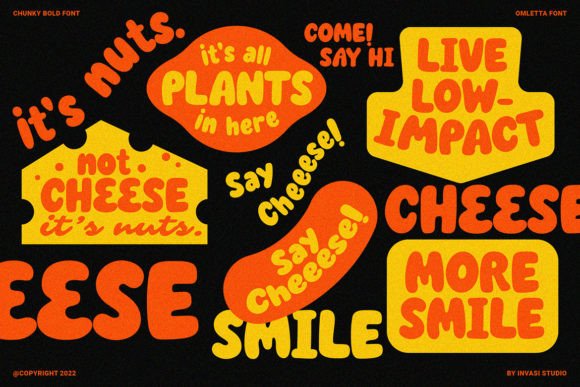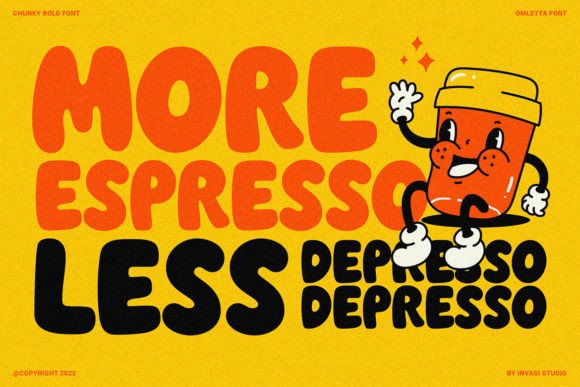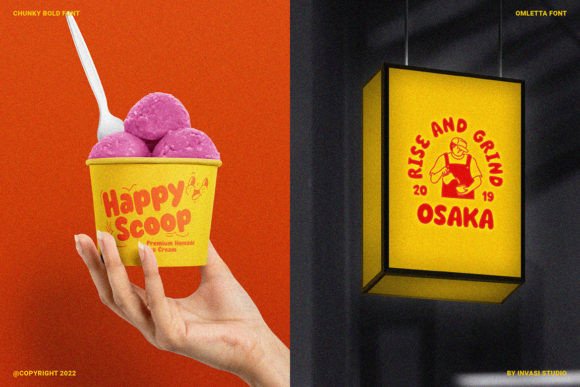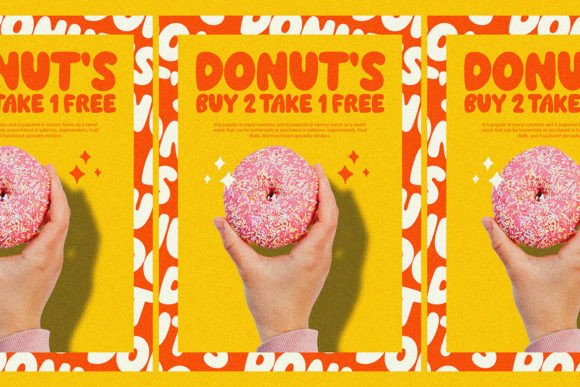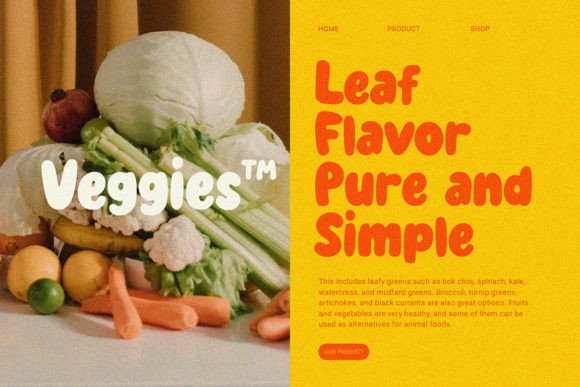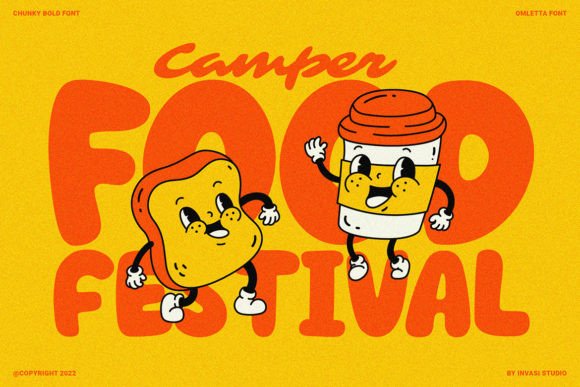
Introduction to Omletta Font
Omletta is a chunky rounded bold font that is not only fun and playful but also incredibly versatile.
Whether youโre working on food product branding, creating a display headline, or designing packaging for your latest project, Omletta font will surely bring a smile to your face This font is PUA encoded which means you can access all glyphs and swashes effortlessly.